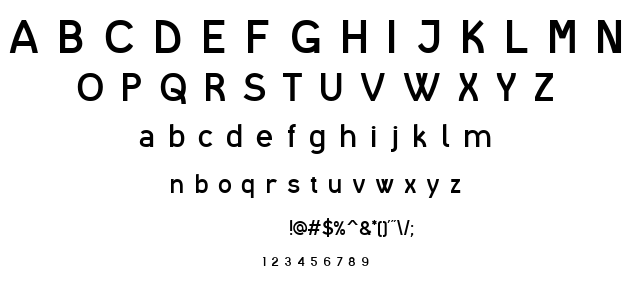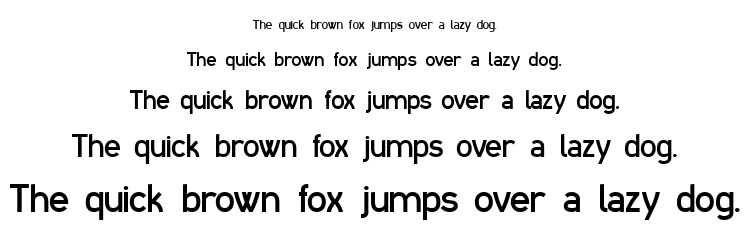
I Shot the Serif is a contemporary, sans serif display font perfect for headlines. Available in both TTF and OTF formats, it’s yours to download absolutely free and use on your marketing collateral, web site or projects.